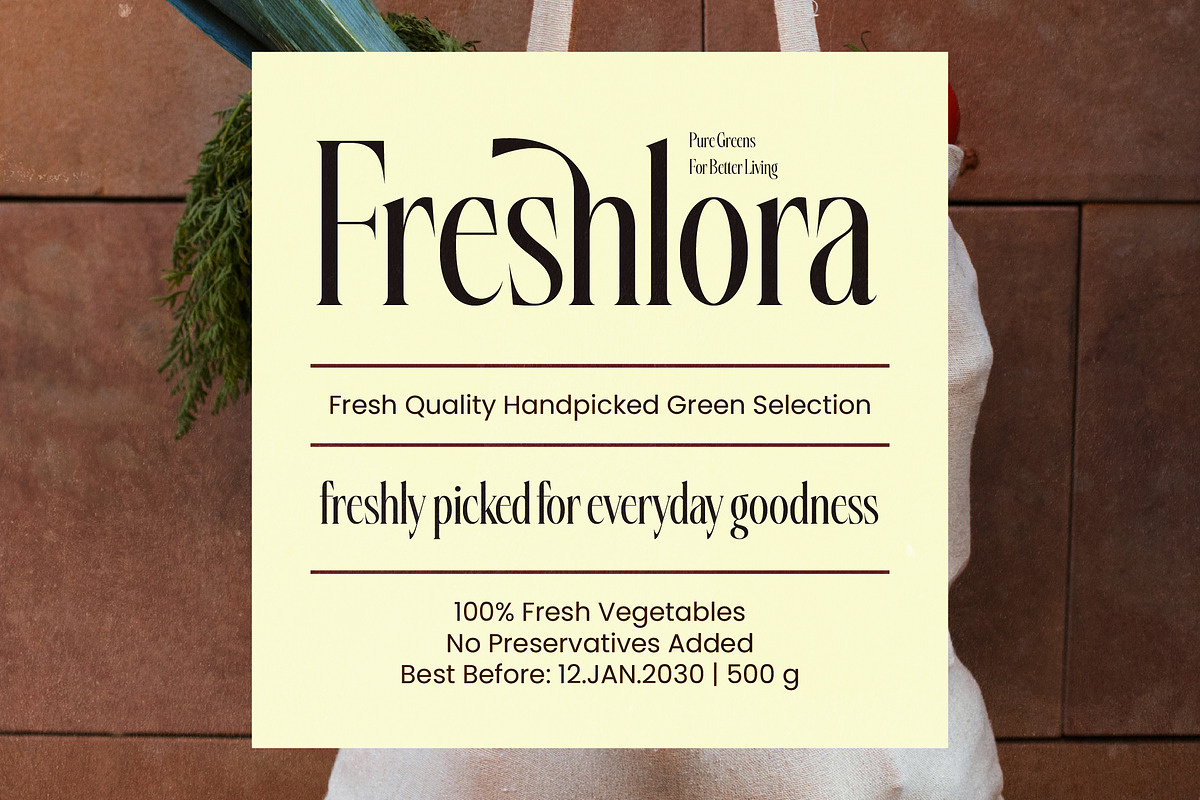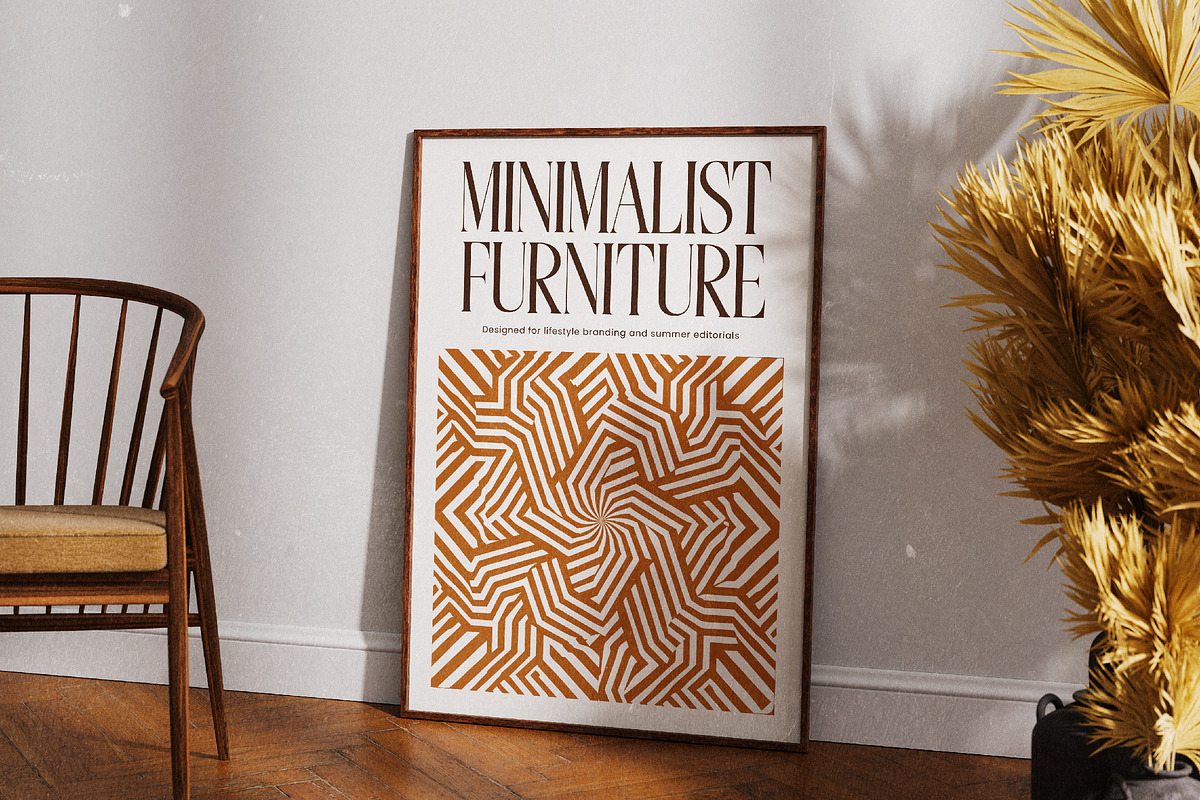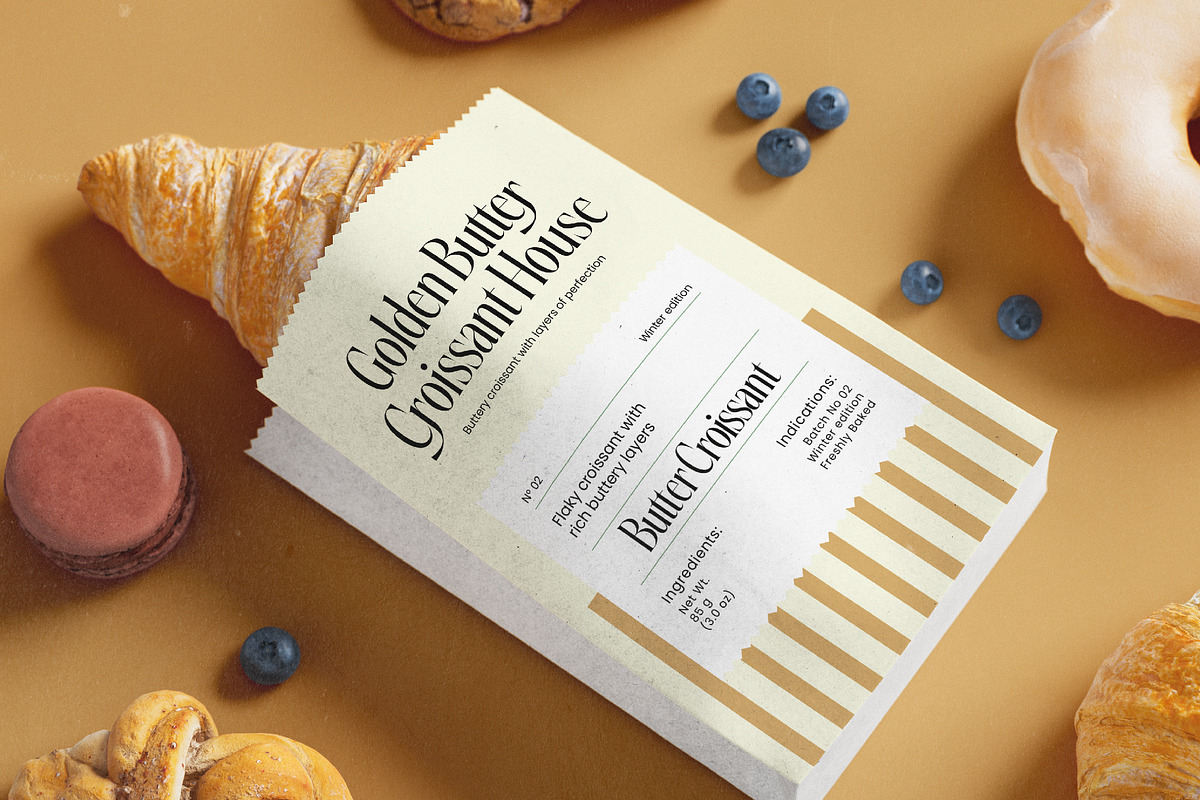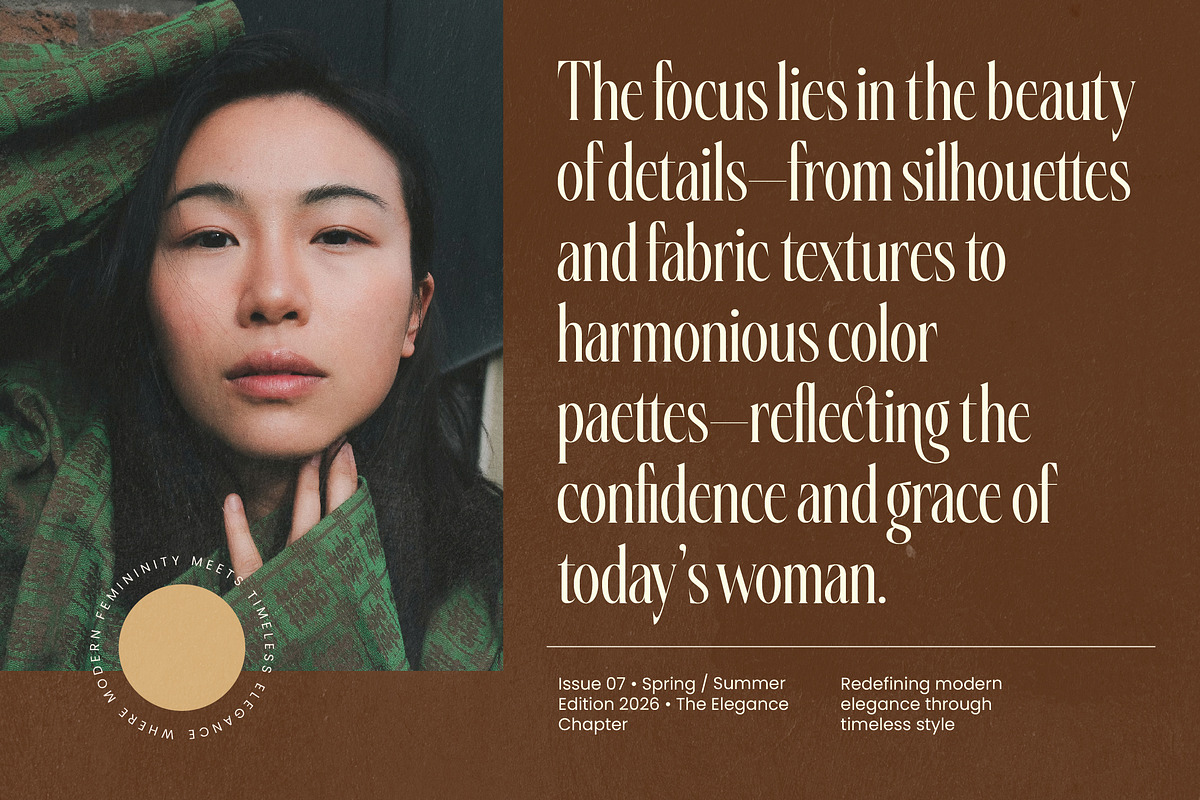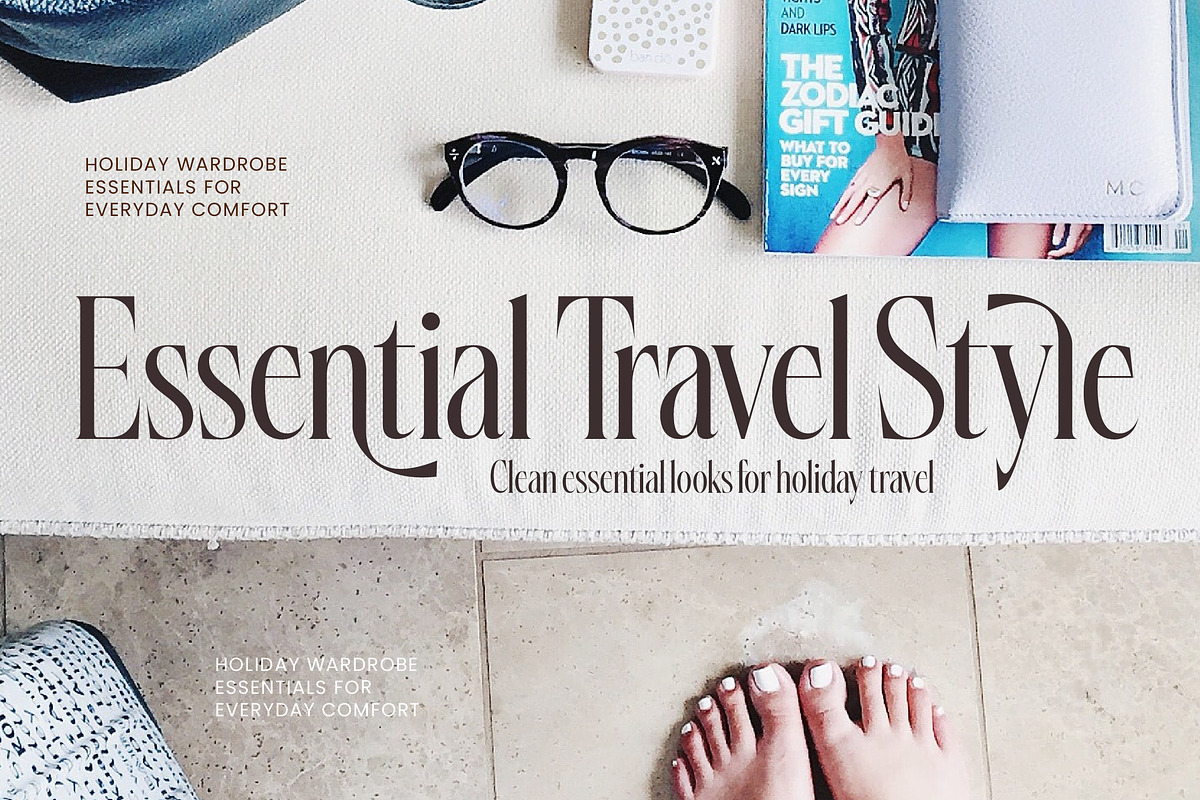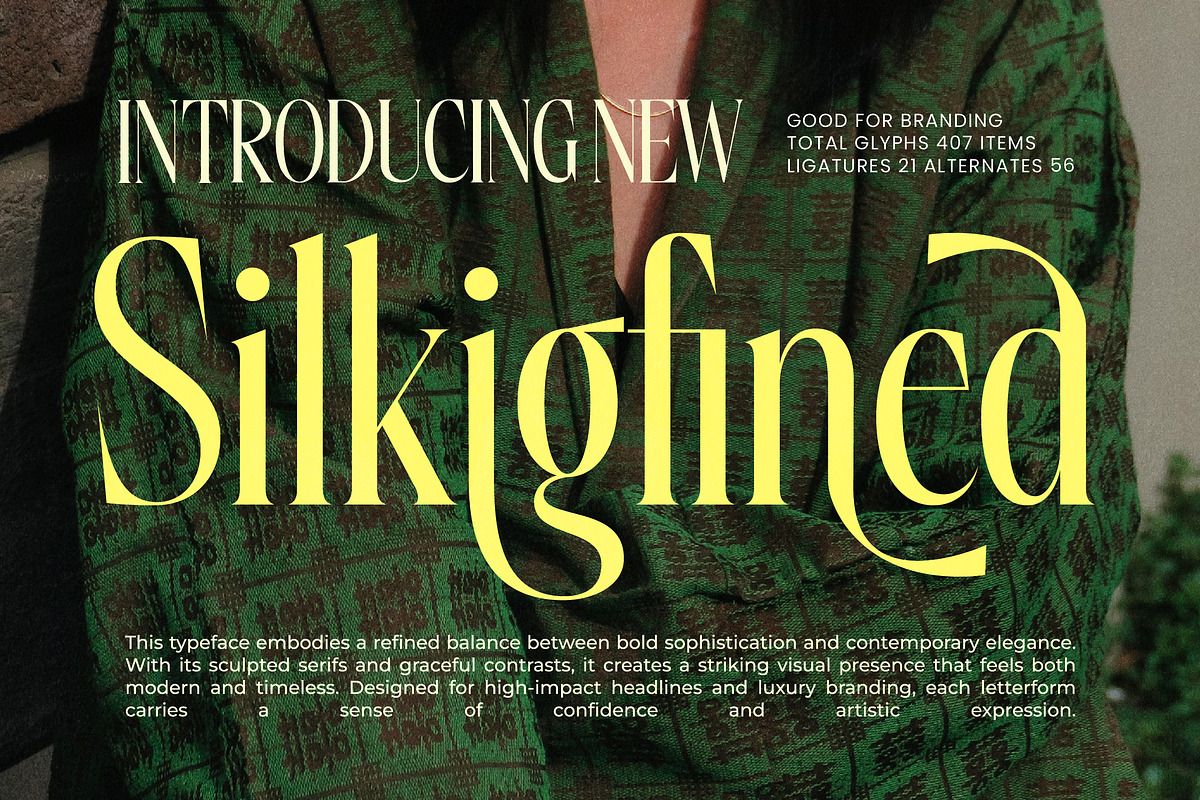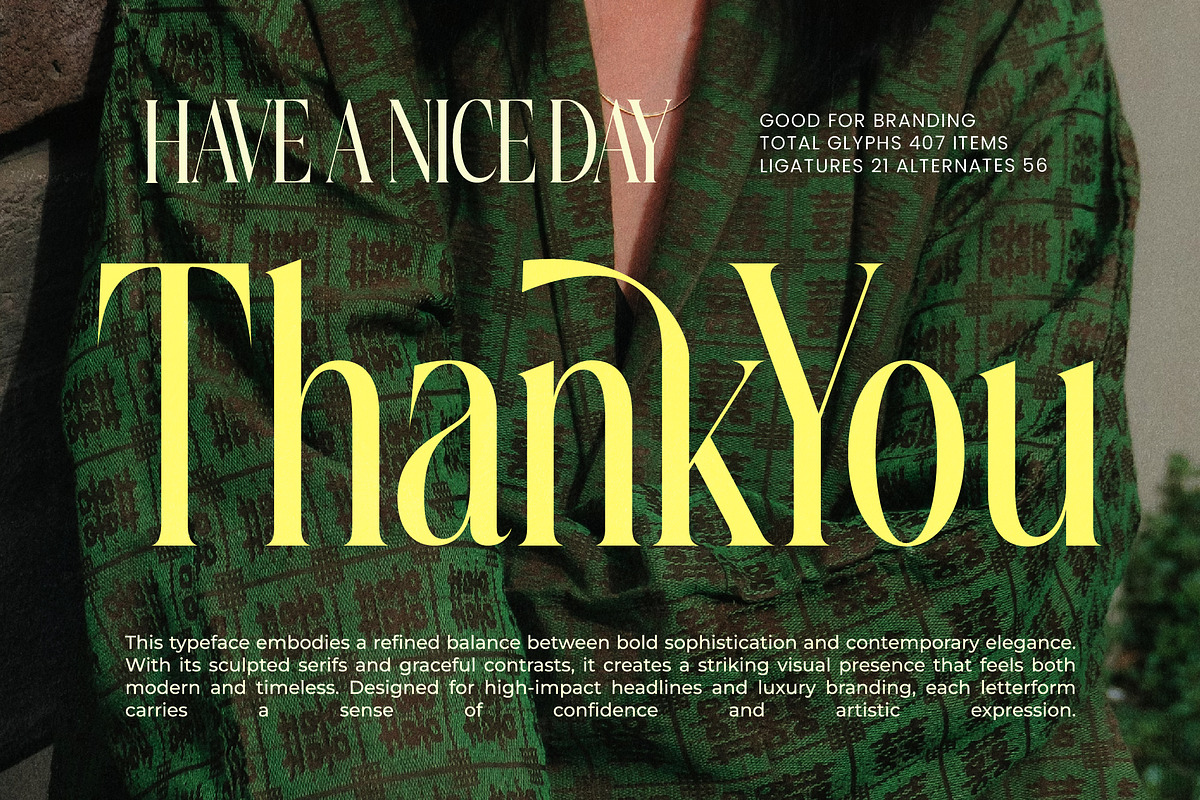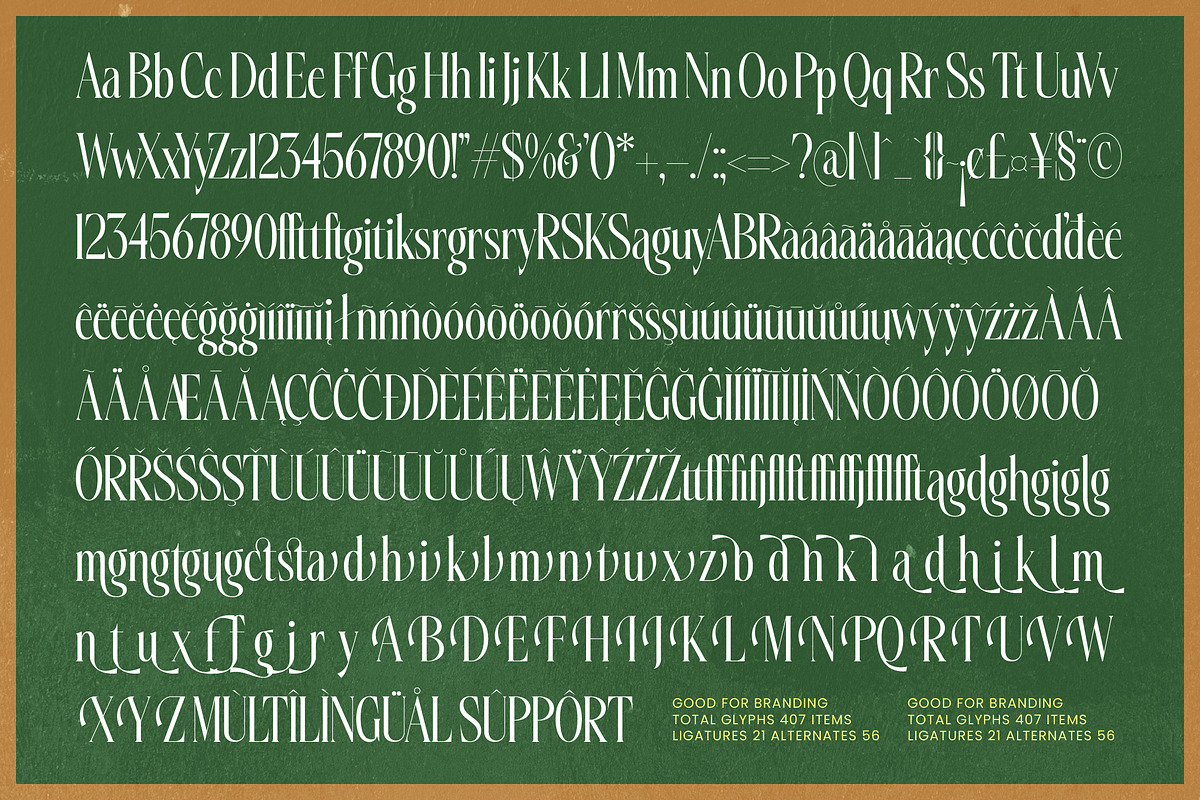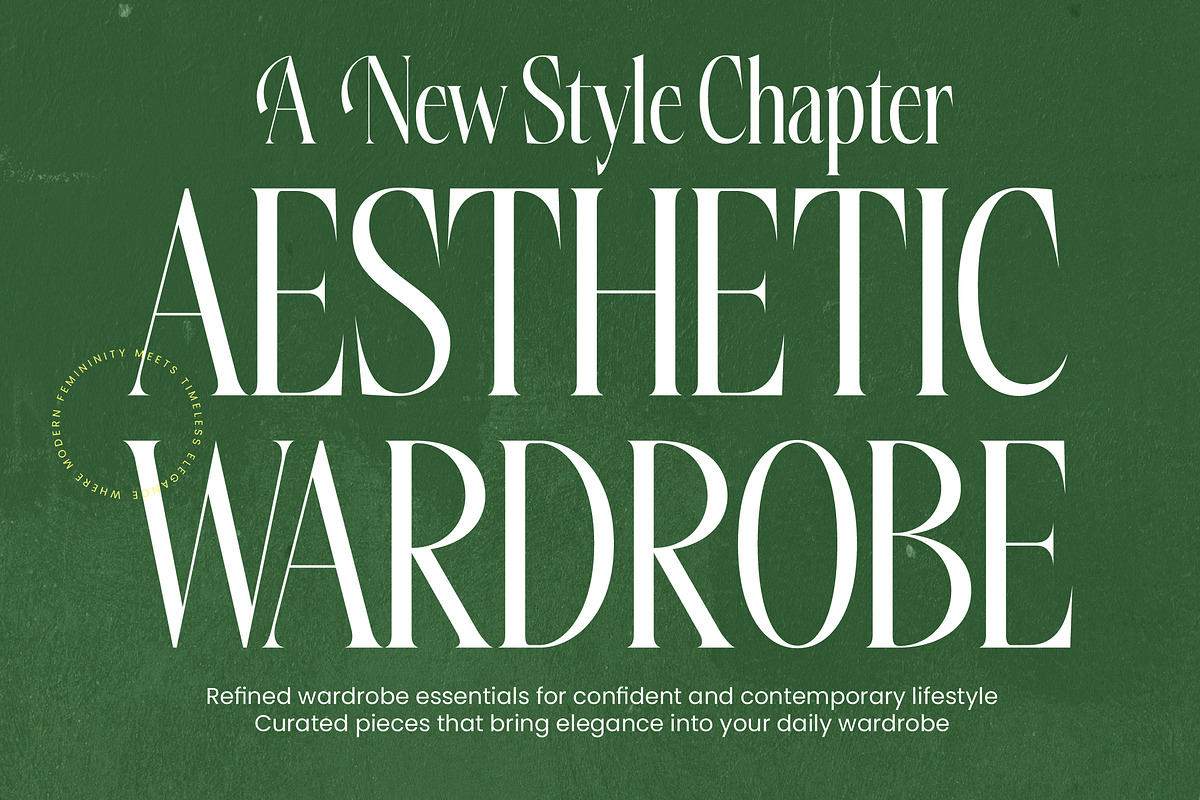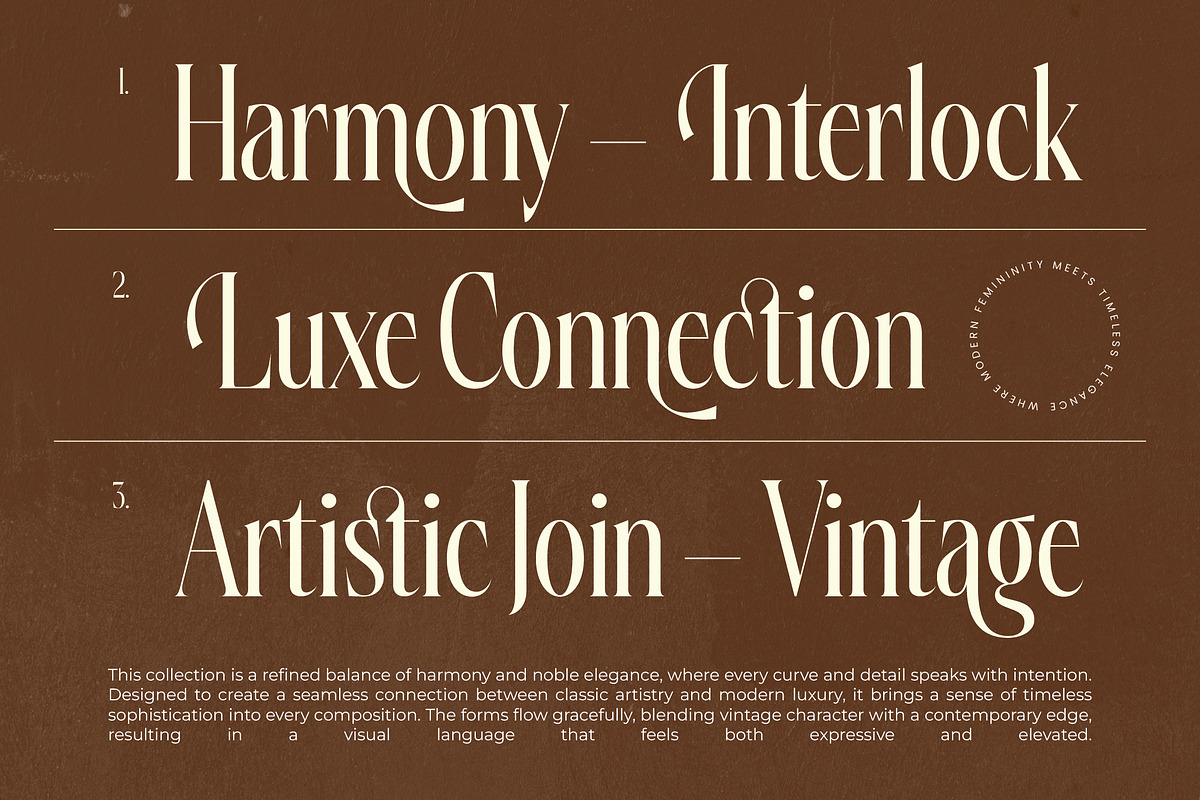
Silkigfined Elegant Luxury Serif
Silkigfined – Elegant Luxury Serif Typeface Elevate your design aesthetic to new heights of sophistication with a masterclass in visual harmony. Silkigfined – Elegant Luxury Serif Typeface embodies a refined balance between bold sophistication and contemporary elegance, offering a striking visual presence that feels both modern and timeless. Every letterform in Silkigfined – Elegant Luxury Serif Typeface is meticulously crafted to carry a sense of artistic expression, making it an essential tool for designers seeking to project confidence and luxury.
Redefine modern prestige with a typeface meticulously engineered for high-impact visual storytelling. Featuring sculpted serifs and dramatic high-contrast strokes, Silkigfined – Elegant Luxury Serif Typeface offers a rich set of 21 ligatures and 56 alternates, allowing for total creative control over your typography. This premium display font ensures that your message is not just read, but experienced as a piece of bespoke design that stands out in a crowded market.
Expand your creative reach and connect with audiences around the world through superior character design. With its extensive multilingual support, Silkigfined – Elegant Luxury Serif Typeface adapts seamlessly across global markets, making it incredibly versatile for international projects. This global compatibility ensures that Silkigfined – Elegant Luxury Serif Typeface maintains its luxurious aesthetic and typographic integrity across various languages, providing a consistent brand identity for multi-national corporations and high-end boutique agencies.
Discover the ultimate typographical foundation for your most ambitious and prestigious branding ventures. Silkigfined – Elegant Luxury Serif Typeface is ideally suited for luxury branding, premium packaging, high-end editorial design, and sophisticated logo creation. Whether it is used for fashion magazine headlines, jewelry advertisements, or cosmetic product labels, Silkigfined – Elegant Luxury Serif Typeface is perfect for any project that demands an exclusive look and a premium feel.
Numerals
Punctuations (OpenType Standard)
Accents (Multilingual Characters)
Ligatures and Alternative Style Stylistic Set